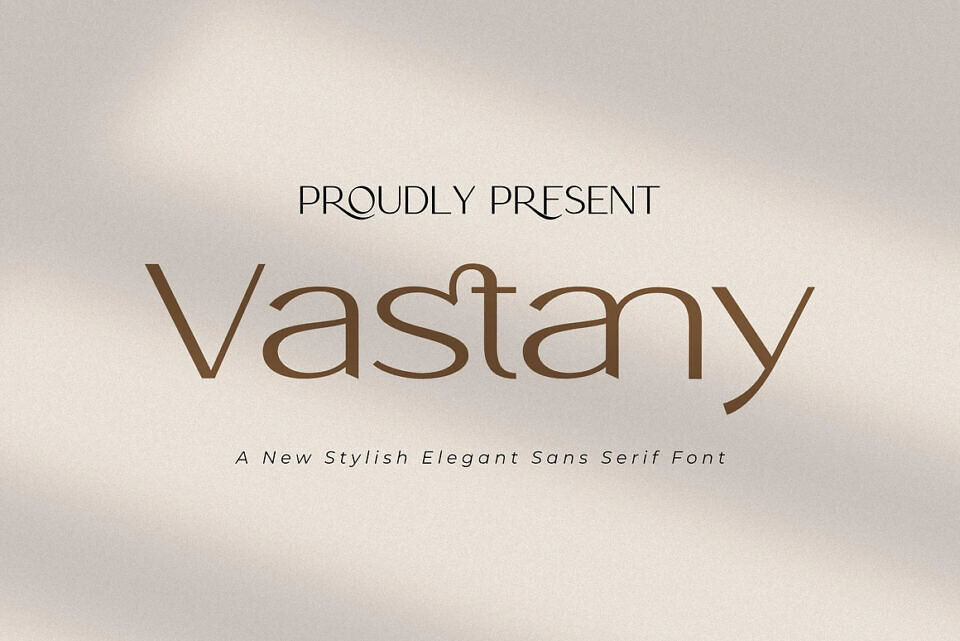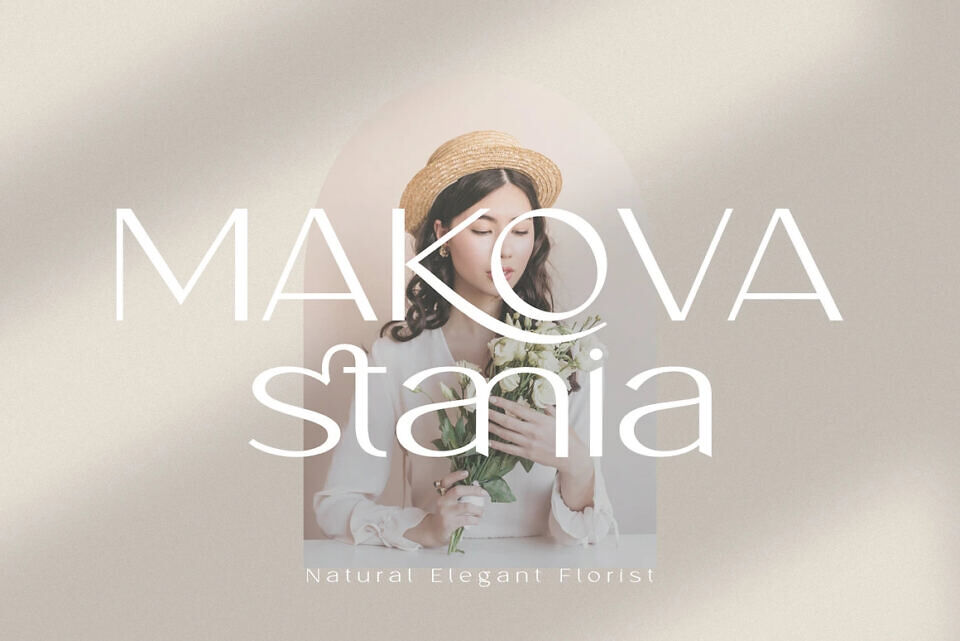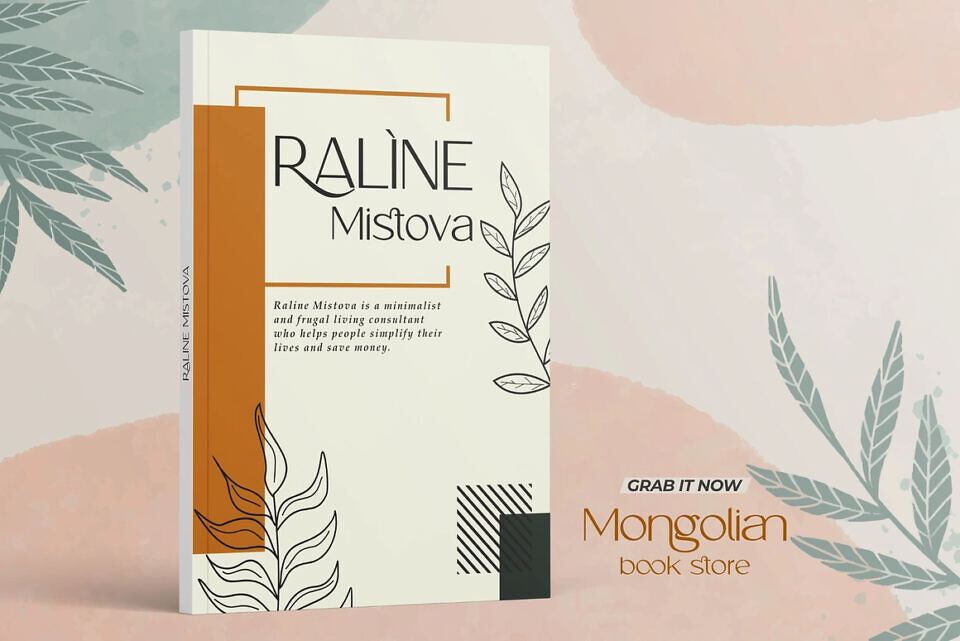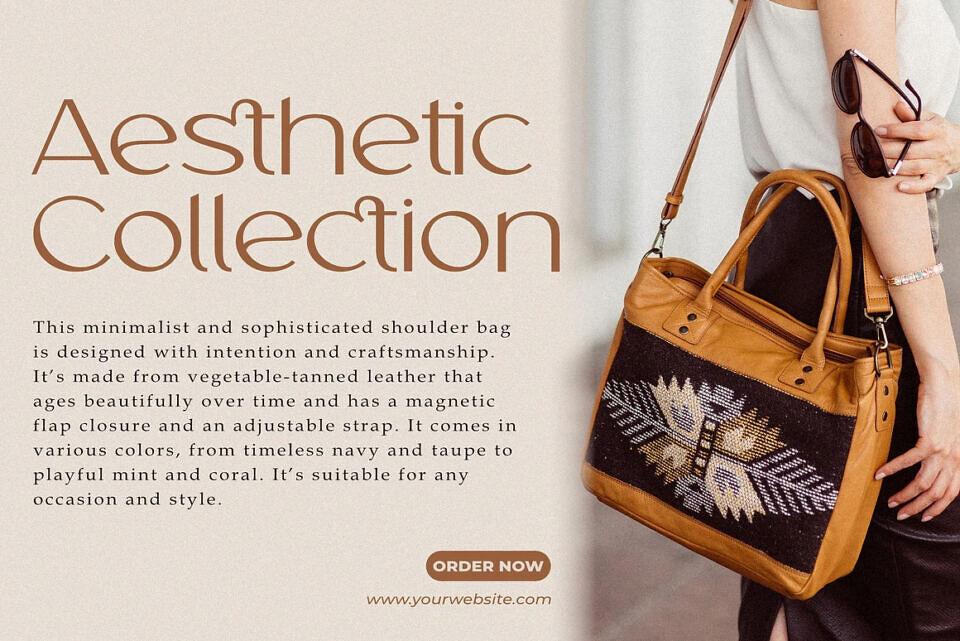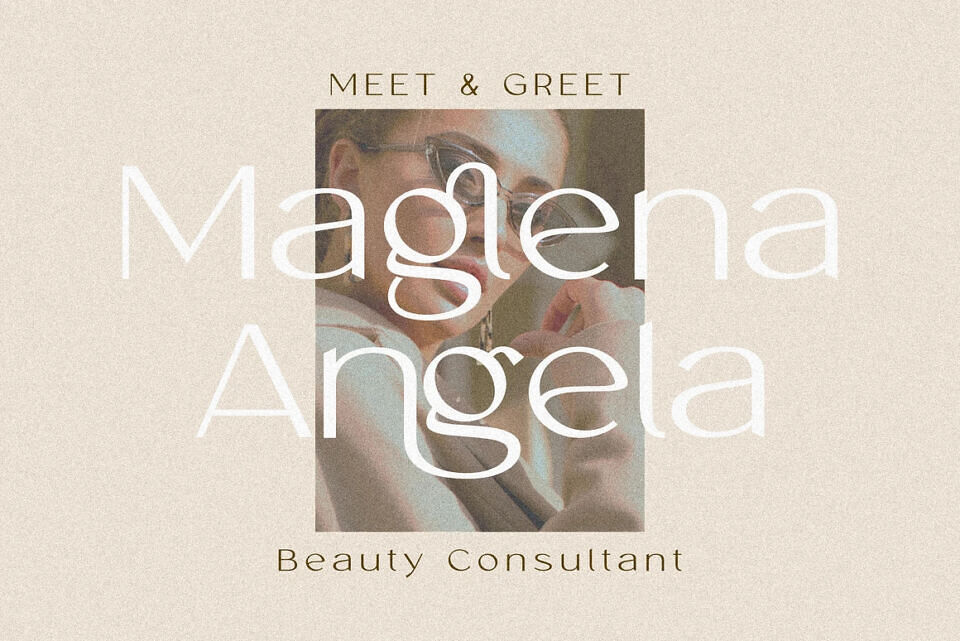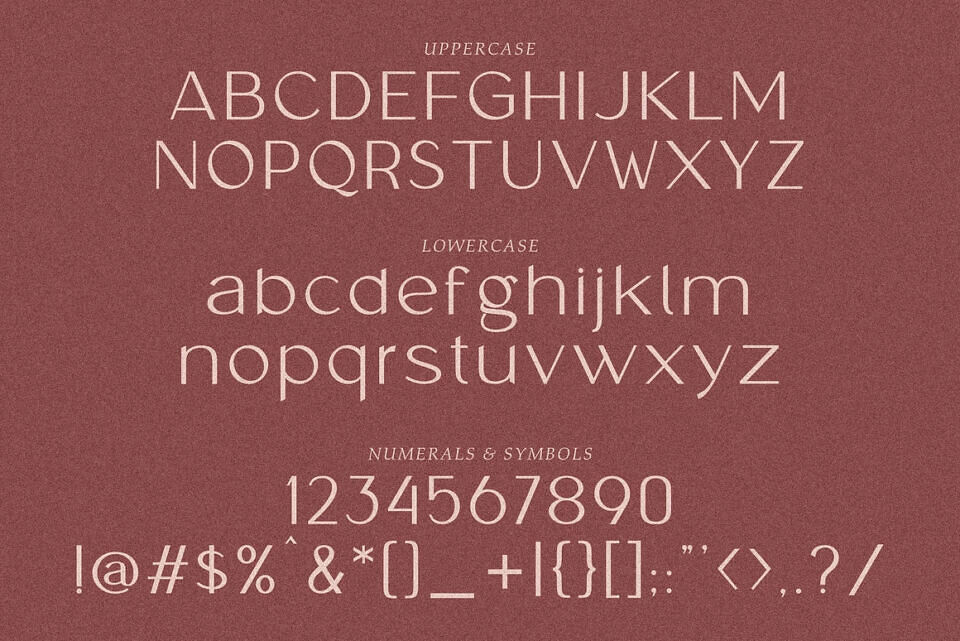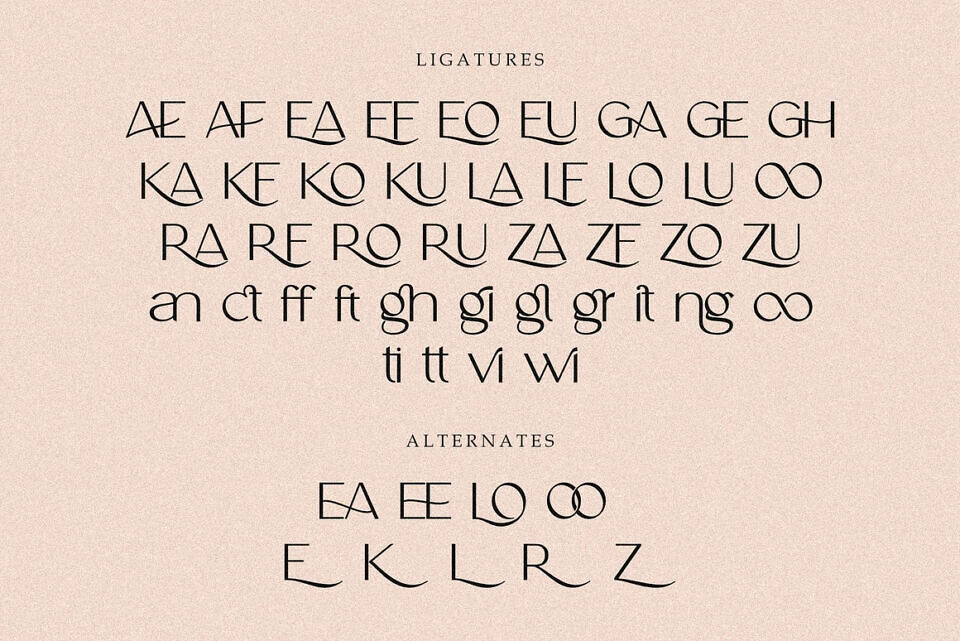
Vastany Font
Vastany Font is a sophisticated sans serif typeface crafted for elegance and versatility. Ideal for logos, branding, business cards, invitations, and other professional designs, it enhances projects with refined style.
Vastany includes beautiful ligatures and alternates, easily accessible through OpenType features or a glyphs panel. Its uppercase and lowercase combinations create striking typography, while the complete character set—numbers, punctuation, symbols, and multilingual support—ensures flexibility across diverse projects.